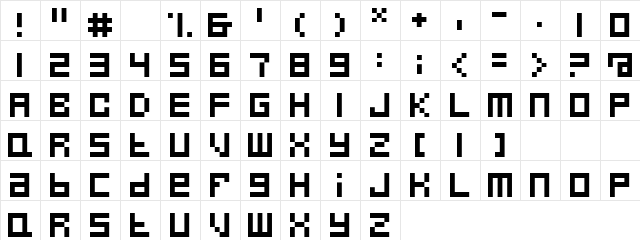
FiveBits Regular
Design Context for FiveBits Typeface
FiveBits takes a measured approach to typography — its balanced proportions and neutral character make it a reliable workhorse for both digital and print work.